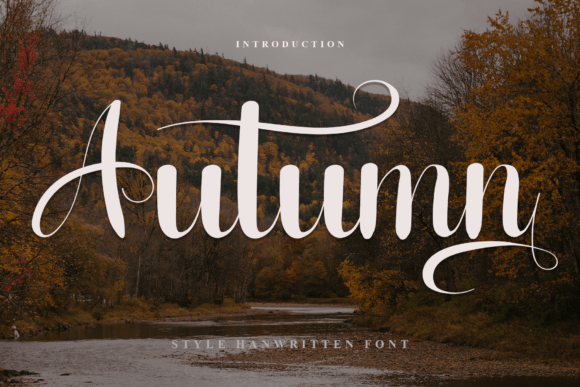
Embracing the Magic of Autumn Font
There’s something special about the first crisp day of autumn – the smell of leaves, the warmth of a cup of coffee, and the feeling of inspiration that comes with the changing seasons. As a designer, I often find myself drawn to the cozy, inviting atmosphere of fall, and I’m not alone. Whether you’re working on a seasonal campaign or simply want to add a touch of elegance to your next project, the right font can make all the difference.
Enter Autumn Font, a beautiful handwritten font that captures the essence of the season. With its elegant touch and timeless style, it’s the perfect choice for designers looking to create spectacular designs that evoke a sense of warmth and sophistication. Whether you’re working on a branding project, a marketing campaign, or simply want to add a touch of personality to your social media posts, Autumn Font is a valuable addition to your toolkit.
Autumn Font Key Features
- Font Family: Autumn Font is a typeface with a natural, earthy feel, suitable for various design applications.
- Unique Characteristics: Autumn Font features a unique blend of organic and geometric elements, creating a distinctive and memorable visual identity for designs.
Autumn Font Review
As a designer, I was excited to dive into the “Autumn Font” and see what it had to offer. Overall, I was pleased with the results, but there were some limitations that held me back.
- The font’s organic, handwritten feel is perfect for adding a touch of personality to designs. It’s great for creating a cozy, autumnal atmosphere.
- The font is highly legible, even at smaller font sizes, making it a great choice for body text.
- The font supports a wide range of languages, making it a great option for international designs.
- The font is quite limited in terms of font sizes and styles. It’s mostly suitable for small to medium-sized text.
- The font lacks a bold weight, which can make it difficult to use for headings or titles.
- The font’s ligatures and connections can be a bit wonky at times, which can affect the overall readability.
Overall, I think “Autumn Font” is a great choice for designers looking to add a touch of whimsy and personality to their designs. While it has some limitations, it’s a solid choice for small to medium-sized text and is definitely worth considering for your next project.
Tips for Getting the Most Out of Autumn Font
Use Autumn Font to create a cozy and inviting atmosphere in your designs. Pair it with warm colors and earthy tones to create a seasonal feel.
Experiment with different font sizes and styles to add depth and interest to your text.
Use Autumn Font for:
- Seasonal marketing materials, such as flyers and posters.
- Invitations and party decorations.
- Blog posts and articles about fall and winter topics.
Alternatives to Autumn Font
Caslon
Caslon is a serif font that is similar to Autumn Font in terms of its classic and elegant feel. However, it has a more refined and sophisticated look, making it suitable for formal and professional designs. It is a good choice when you want to convey a sense of tradition and luxury.
Comparison to Autumn Font: While both fonts have a classic feel, Caslon is more refined and elegant, making it a better choice for formal designs.
Lato is a sans-serif font that has a clean and modern look. It is a good alternative to Autumn Font when you want to create a more contemporary design. Lato is suitable for headings, titles, and body text, making it a versatile choice for designers.
Comparison to Autumn Font: Lato is a more modern font compared to Autumn Font, making it a better choice for designs that require a clean and minimalist look.
Playfair Display is an elegant and luxurious serif font that is suitable for formal and high-end designs. It has a more ornate and decorative look compared to Autumn Font, making it a good choice when you want to create a sense of opulence and sophistication.
Can I customize or modify Autumn Font for my specific design needs?